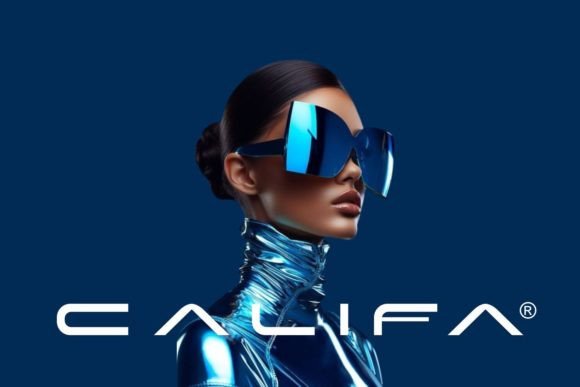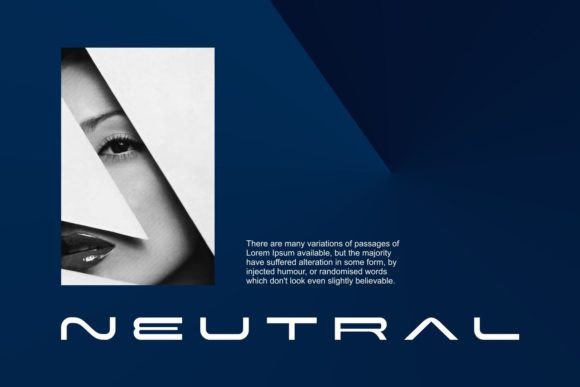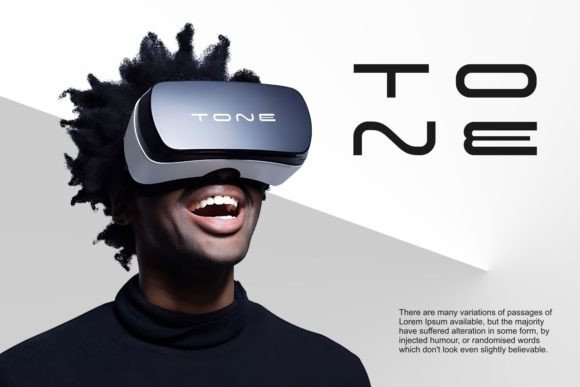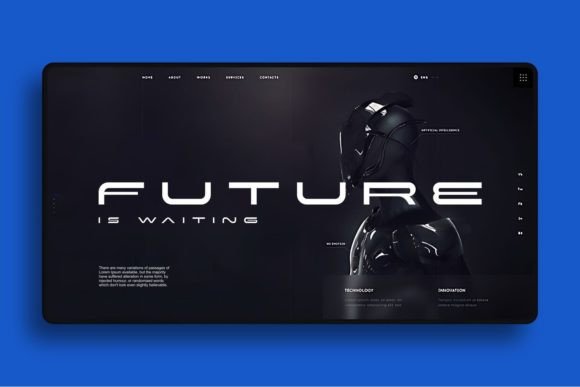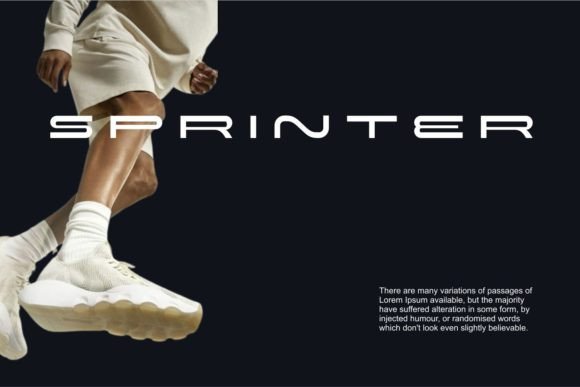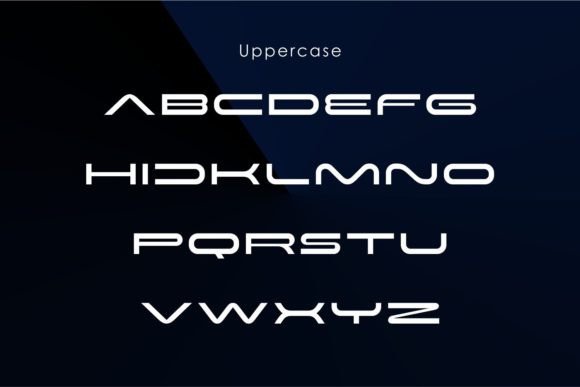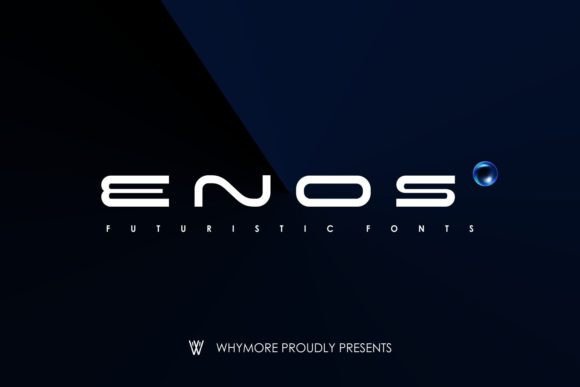
Unlock the Future of Typography with ENOS Fonts
In the ever-evolving world of design, typography plays a pivotal role in conveying messages, expressing creativity, and establishing brand identities. As technology advances and digital platforms continue to dominate the creative landscape, the demand for innovative and forward-thinking typographic solutions has never been more pressing. This is where ENOS Fonts comes into play, revolutionizing the way designers and crafters approach their artistic endeavors.
The Gateway to Typographical Innovation
ENOS Fonts represents the pinnacle of typographical innovation, offering a meticulously curated collection of futuristic typefaces that are not only visually stunning but also thought-provoking. Each font within the ENOS collection has been hand-picked for its unique ability to capture attention, convey bold statements, and push the boundaries of conventional design. Whether you’re a seasoned designer, a digital artist, or a branding expert, ENOS Fonts provides the tools necessary to transform your visions into reality.
Empowering Creativity and Differentiation
In today’s crowded digital marketplace, standing out from the competition is more challenging than ever. This is where ENOS Fonts truly shines, offering an arsenal of distinctive typefaces that empower designers to create works that are not only aesthetically pleasing but also uniquely engaging. By integrating ENOS Fonts into your projects, you’re not just adding text – you’re crafting a visual experience that resonates with your audience, fosters connection, and leaves a lasting impression.
The Ideal Choice for Forward-Thinking Designers
ENOS Fonts is more than just a collection of typefaces; it’s a mindset. It’s for the pioneers, the innovators, and the creatives who are always on the lookout for the next big thing in typographic advancement. With ENOS, you’re equipped with the power to challenge conventional norms, explore new artistic territories, and redefine the limits of what’s possible in design. It’s an invitation to join a community of like-minded individuals who see typography not just as a functional element but as a powerful medium for expression and innovation.
One of the standout features of ENOS Fonts is its incredible versatility. Whether you’re working on digital blueprints, crafting a brand identity, designing advertising materials, or embarking on any other creative project, ENOS Fonts has got you covered. The collection is designed to be adaptable, ensuring that your designs not only look great but also perform exceptionally well across various platforms and mediums. This adaptability makes ENOS Fonts an invaluable resource for professionals who need to deliver high-quality work efficiently and effectively.
Breaking Barriers with ENOS Fonts
The world of design is constantly evolving, and staying ahead of the curve requires a willingness to experiment and push boundaries. ENOS Fonts encourages designers to break free from traditional typographic constraints and explore new dimensions of creativity. By incorporating ENOS Fonts into your workflow, you’re not just enhancing your designs; you’re elevating your artistic voice and giving your audience something to remember.
Why Choose ENOS Fonts?
- Avant-Garde Typography: Experience the cutting-edge of typographic design with fonts that are as innovative as they are functional.
- Perfect for Modern Designers: ENOS Fonts aligns with the modern designer’s mindset, offering tools that are both inspiring and practical.
- Wide Range of Applications: From digital projects to print materials, ENOS Fonts can be used across a variety of mediums, making it a versatile addition to your design toolkit.
- Unparalleled Creativity: With ENOS Fonts, the possibilities are endless. The collection is designed to spark creativity and fuel your most ambitious projects.
The future of typography is here, and it’s more exciting than ever. By choosing ENOS Fonts, you’re not just selecting a typeface; you’re embracing a new way of thinking about design. It’s time to challenge the status quo, explore new horizons, and create works that inspire and captivate. ENOS Fonts is your partner in this creative journey, providing the tools and inspiration you need to take your designs to new heights.